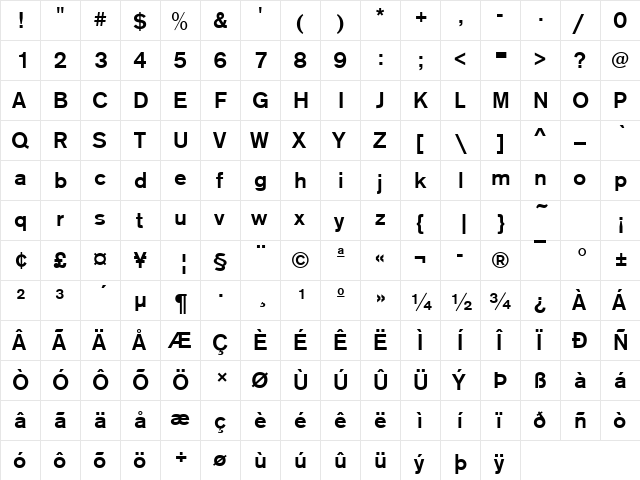
URWAccidaliaTMed Regular
Design Context for URWAccidaliaTMed Typeface
URWAccidaliaTMed is a composed and adaptable typeface that performs quietly and consistently across a wide range of design contexts.